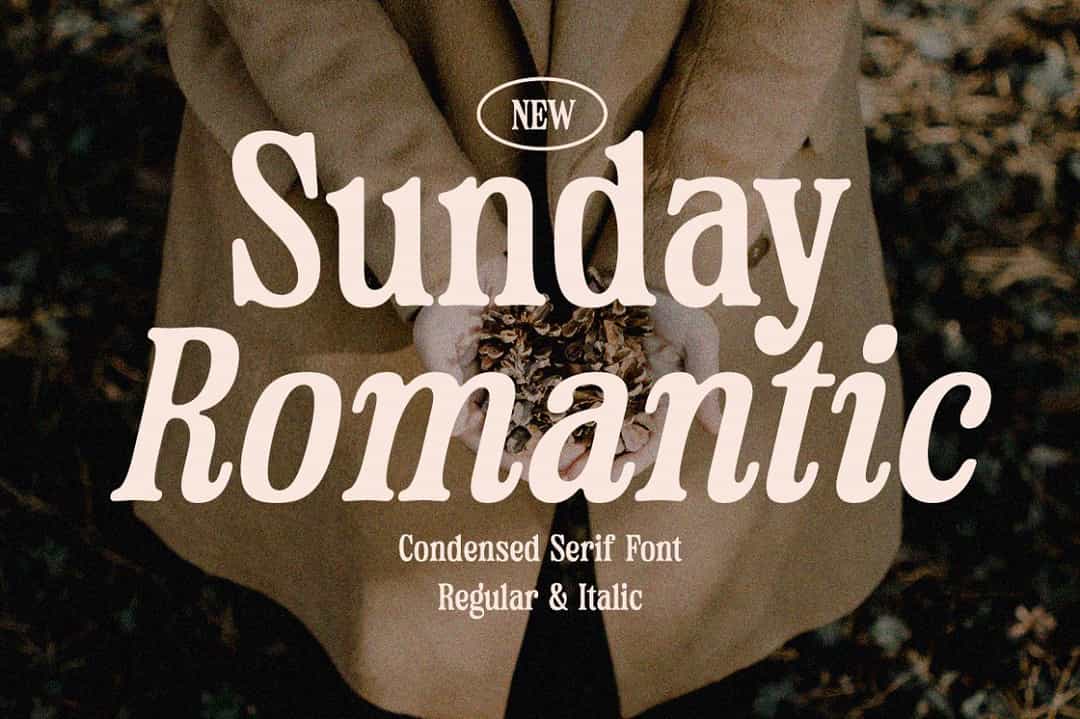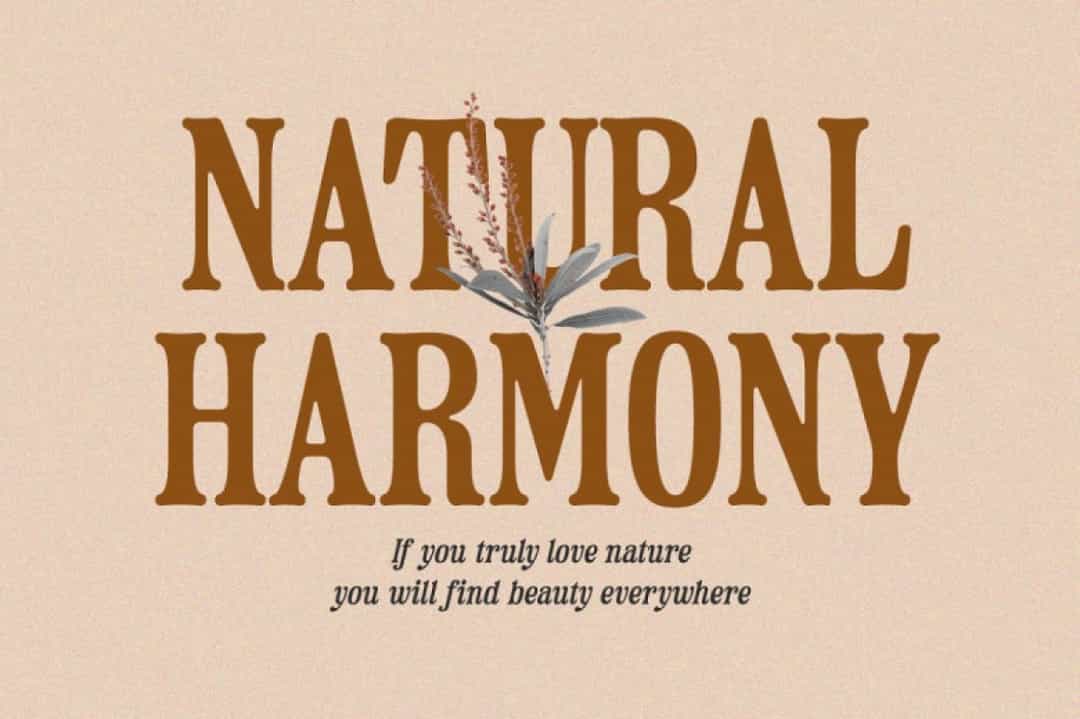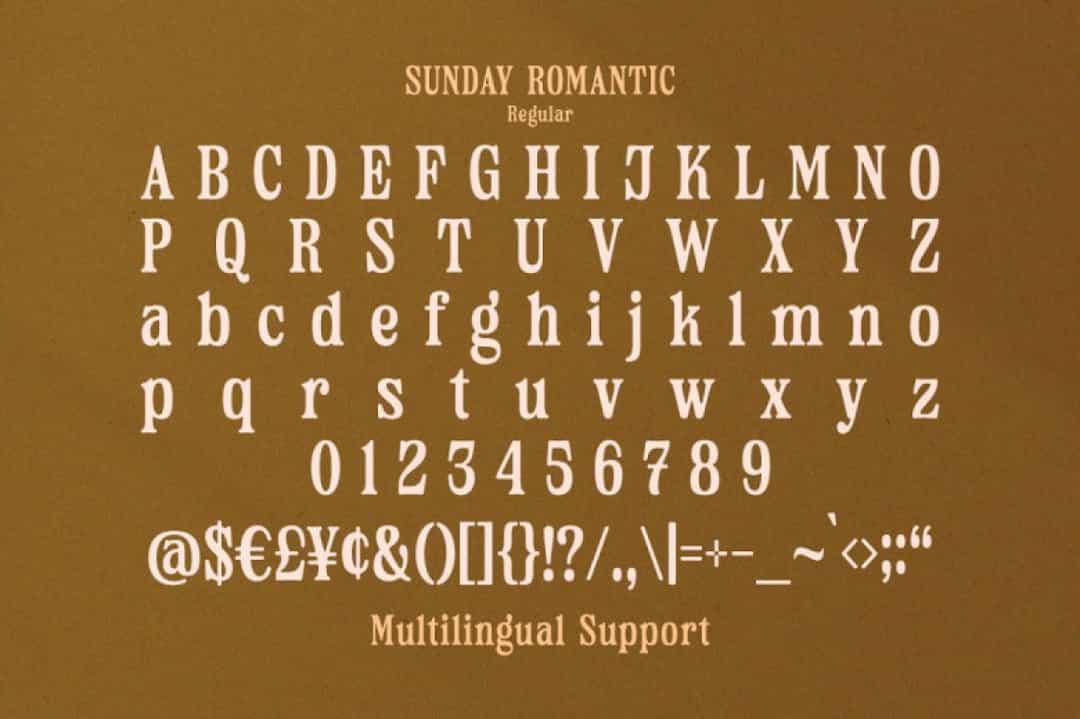
Sunday Romantic is an elegant reduced serif typeface designed for formal forms like labels, invitations and magazines as well as logos, books and wedding/greeting cards packaging, fashion/makeup products stationery books labels or any other advertising needs.